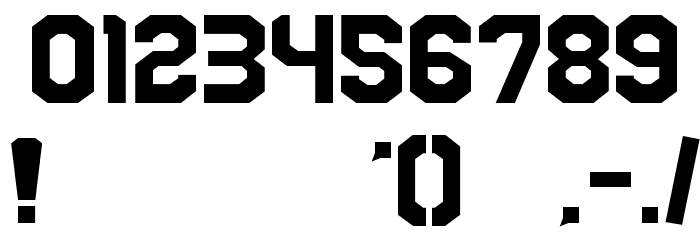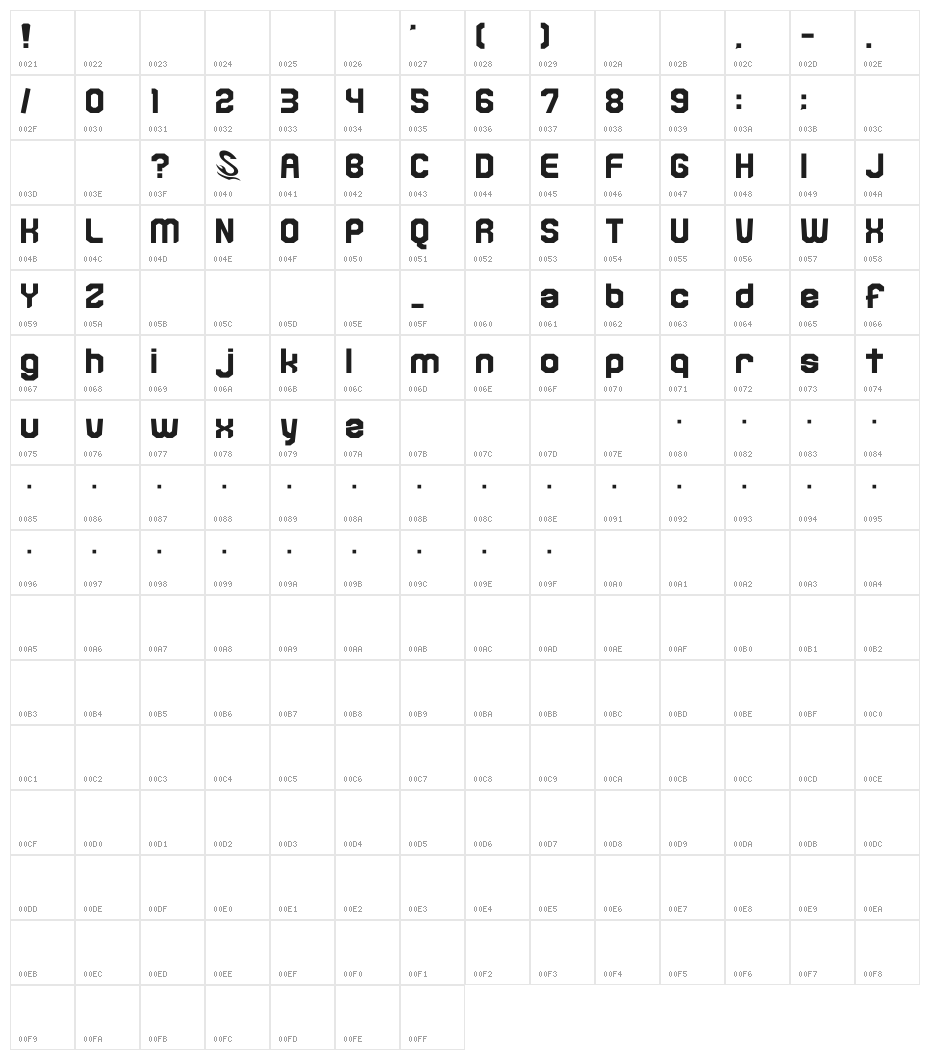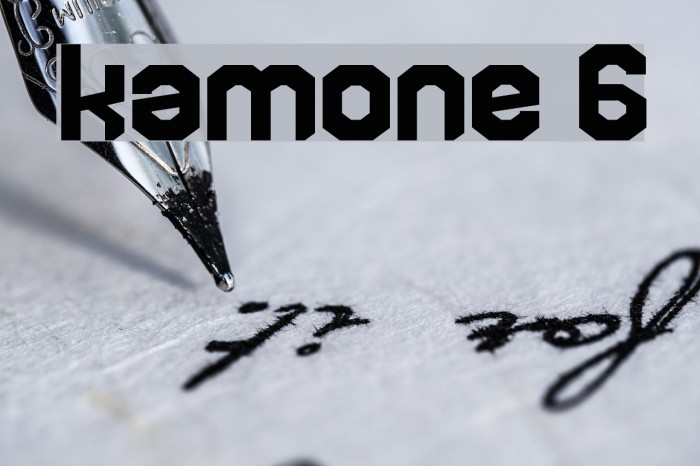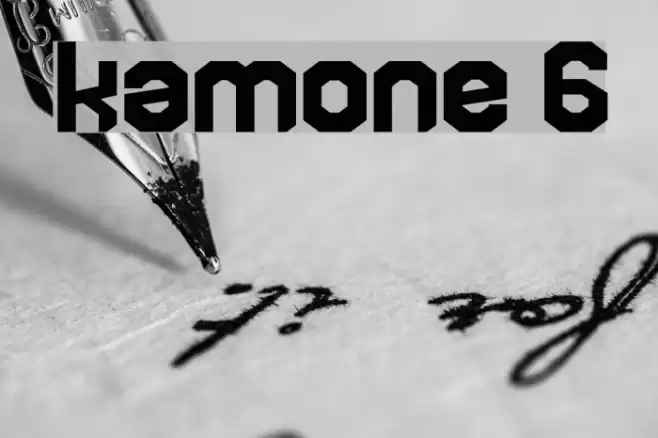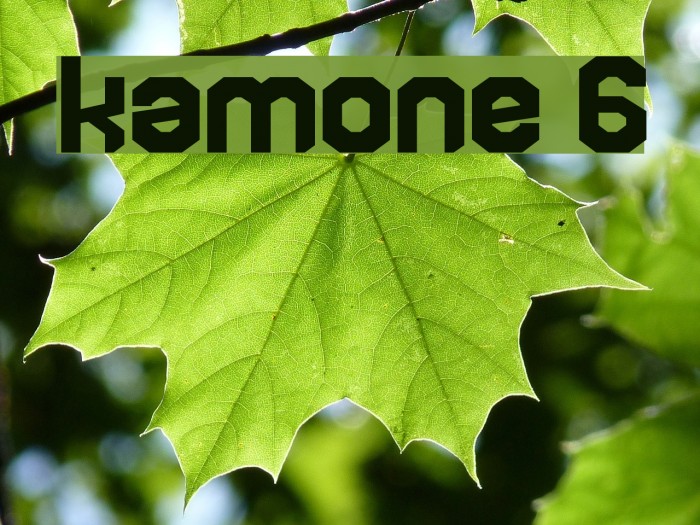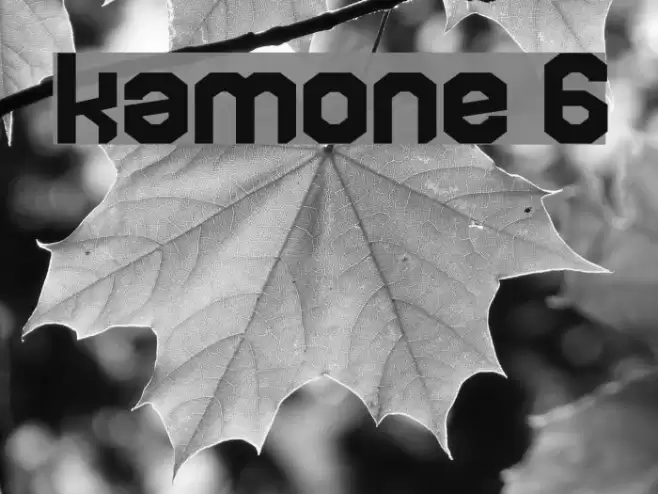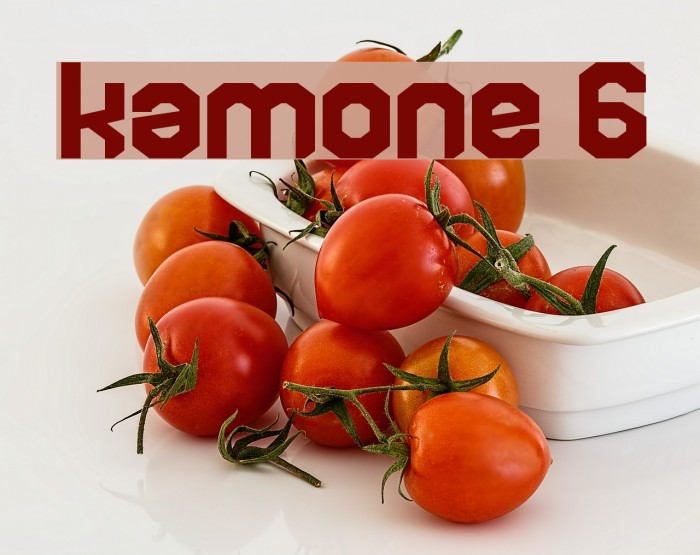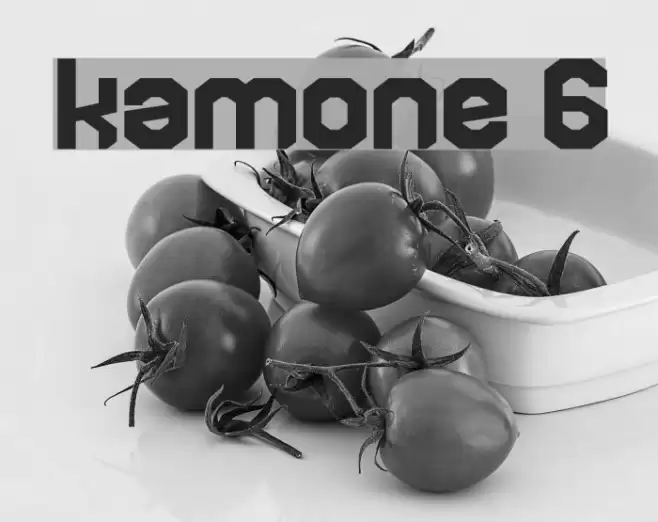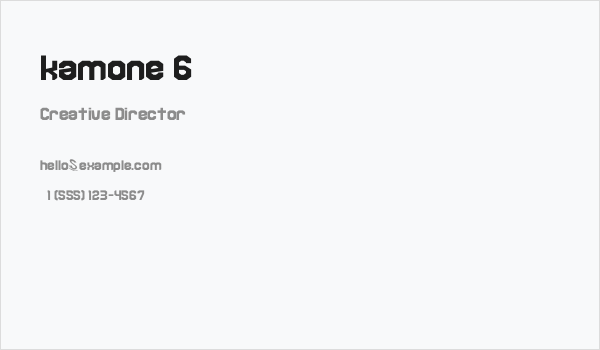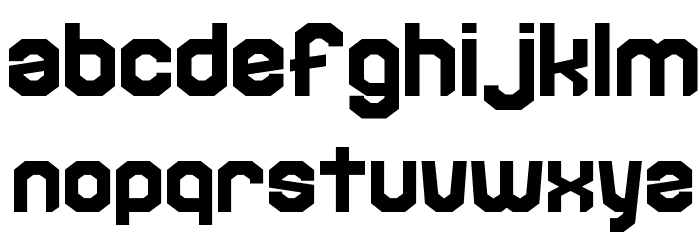
kamone 6 Font
kamone 6 Description
This font features a bold, geometric design with a strong presence. The characters are constructed with thick, angular lines, giving them a blocky and industrial appearance. The uppercase and lowercase letters maintain a consistent style, with sharp edges and a uniform height that enhances readability. The numbers and special characters follow the same design principles, ensuring a cohesive look across all elements. This font's unique style makes it stand out, suitable for projects that require a modern and impactful visual statement.